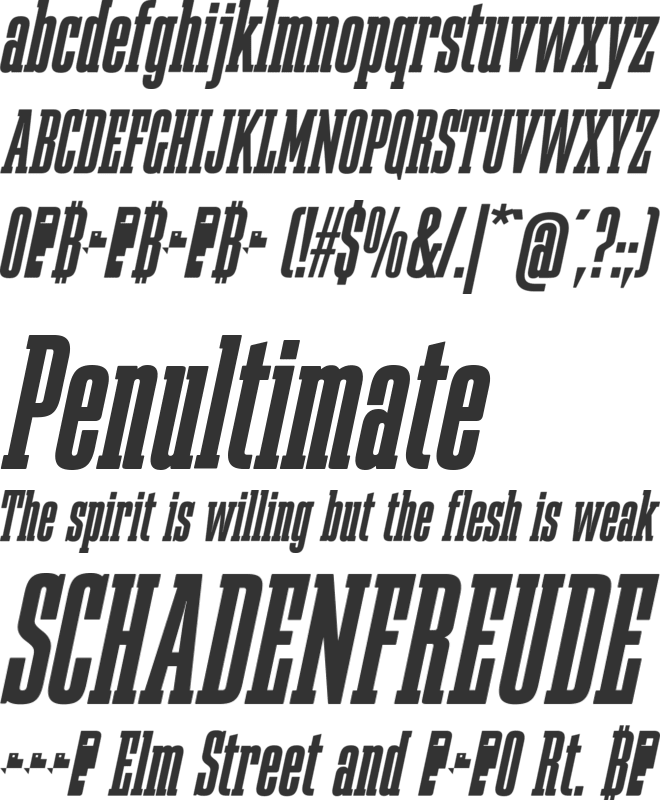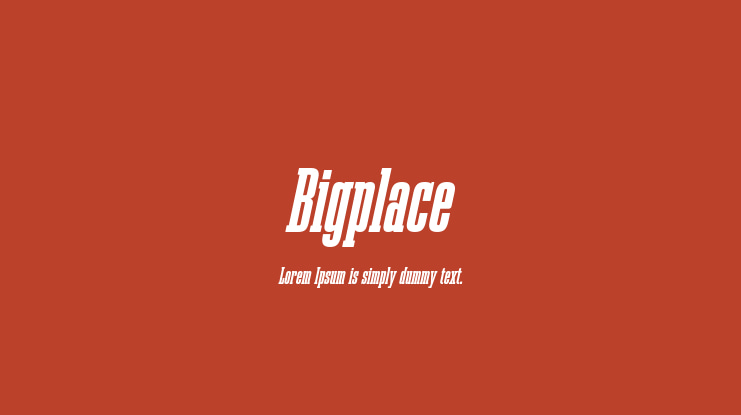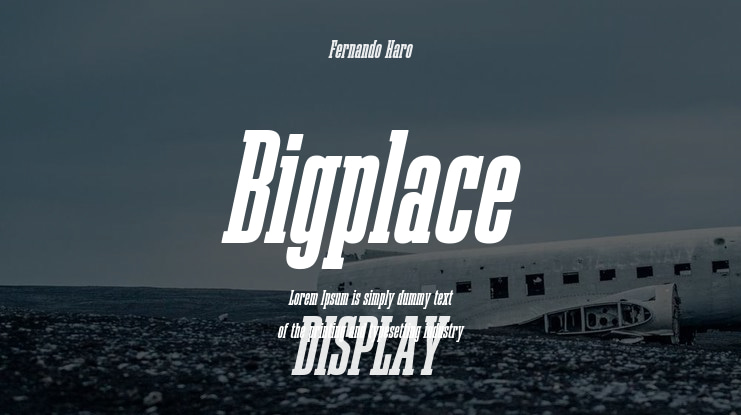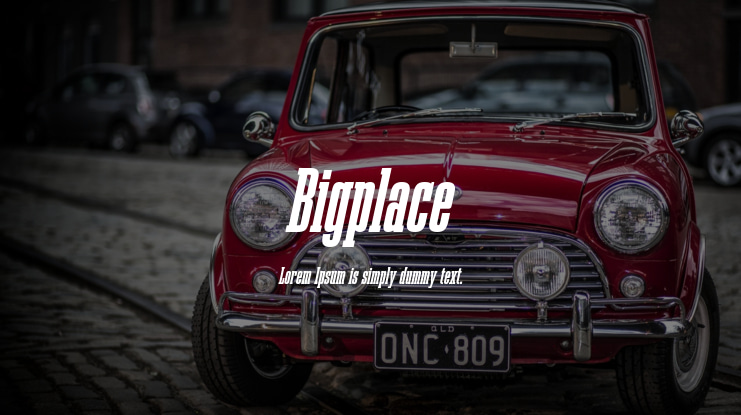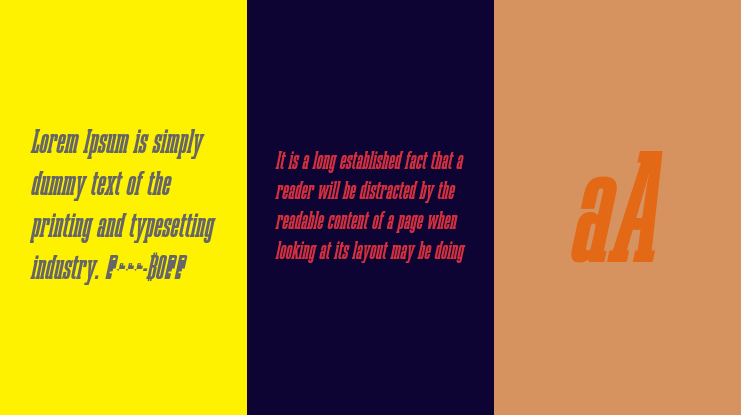
Bigplace Font
Bigplace is a typeface that boasts an ultra-condensed structure and a striking Extra Bold style. Designed to capture attention, it merges the strength and presence of a Slab Serif with the dynamic energy of its oblique stroke, resulting in a look that is both bold and unmistakable.
Drawing inspiration from two of the 20th century's most influential graphic movements, Bauhaus and Soviet Constructivism, Bigplace takes cues from the rich history of graphic design, posters, and editorial design. By combining the functional character of these avant-gardes with a contemporary flair, Bigplace achieves a captivating and modern aesthetic.